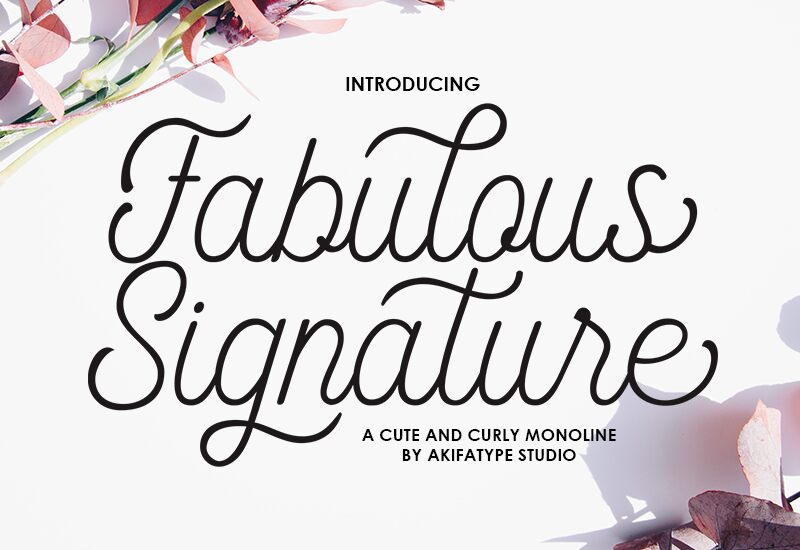
Fabulous Signature breathes life into the tradition of calligraphy with its gracefully semi-light strokes and a touch of modernity, crafted meticulously by Akifatype Studio. The semi-condensed width of the font complements its flowing curves, giving it a poised yet intimate presence on any canvas. Its cute and curly characteristics exude charm and personality, making it more than just a typeface-it's an artistic statement.
The aesthetic appeal of Fabulous Signature lies in its ability to merge the elegance of classic calligraphy with the freshness of contemporary design. Each letter is carefully constructed to ensure legibility while maintaining a stylish flair that is sure to captivate the viewer's eye. The playful loops and subtle swashes suggest creativity and sophistication, perfect for designers looking to add a personal touch to their work.
Whether it's for branding, wedding invitations, or editorial layouts, Fabulous Signature offers versatility without sacrificing style. Its unique blend of traditional artistry with modern sensibilities makes it ideally suited for projects that require a signature look-one that speaks volumes about quality and finesse. Embrace the allure of Fabulous Signature for your next creative venture and let your designs tell a story as distinctive as your own signature.